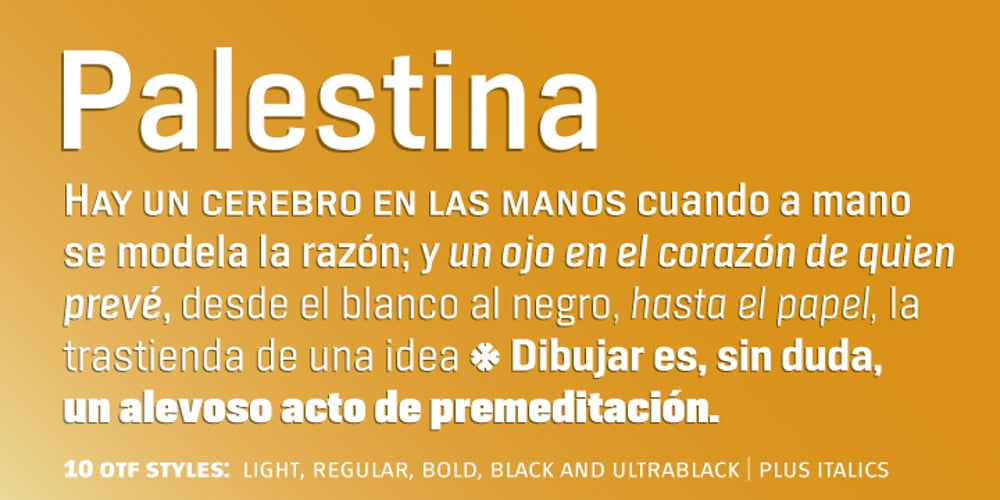
Palestina Font Family was designed by Rubén Fontana and published by Tipo. Palestina contains 10 styles and family package options. Palestina is a sans serif font designed for reading texts and inspired in the condensed Trade Gothic font, which features a strong influence from the time of metal foundry-based typography. The characteristic of its design is easily recognizable and very stable to use for titles and newspaper and magazine headlines.